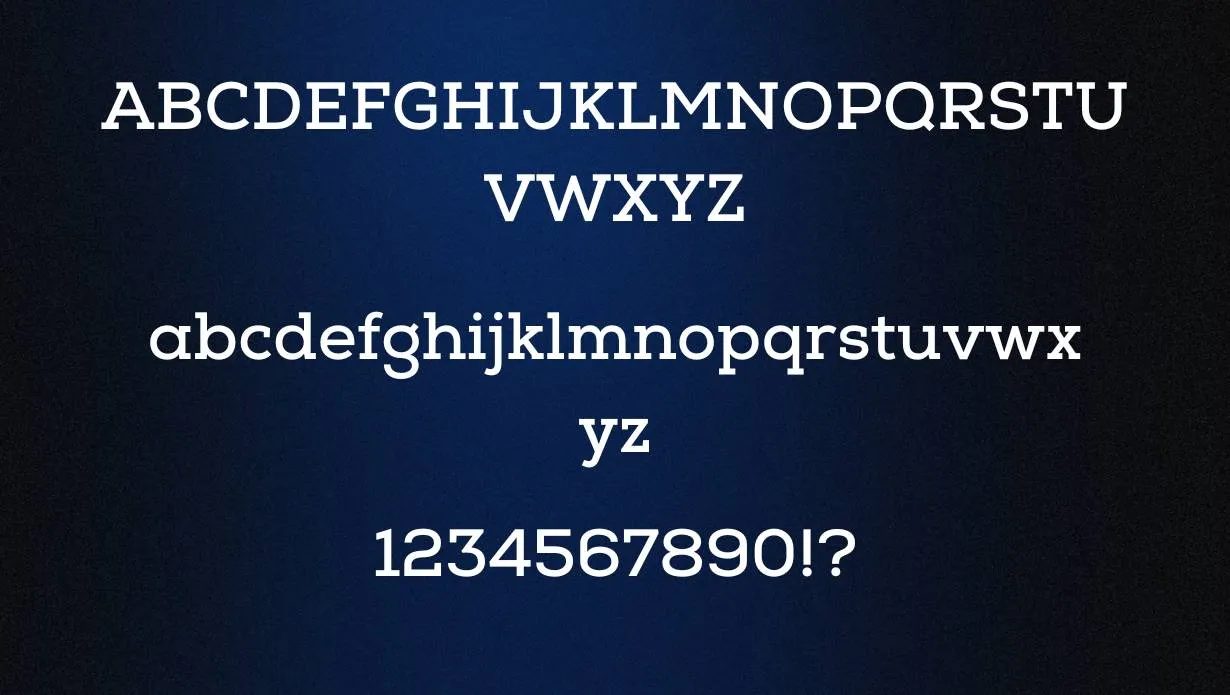
Slab Serif Font is a bold and attention-grabbing typeface that commands authority and presence. With its thick, block-like serifs, this font is perfect for headlines, logos, and designs that require a strong visual impact.
| Name | Slab Serif Font |
| Designer | Vincent Figgins |
The heavyweight and medium width ensure that each letter carries a substantial weight, making it a powerful choice for projects that demand a bold and confident aesthetic.